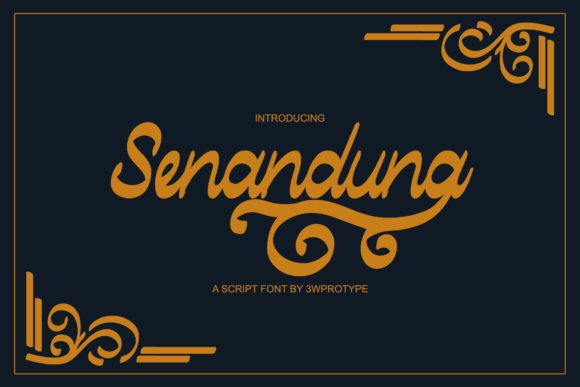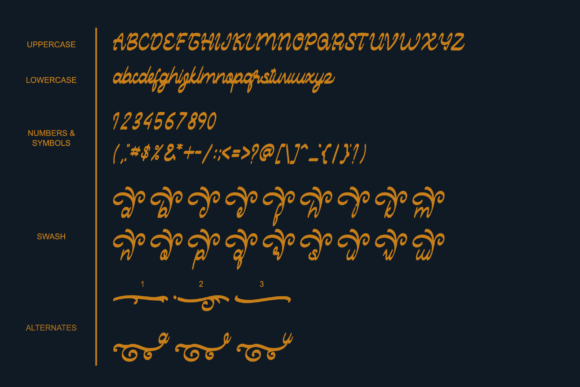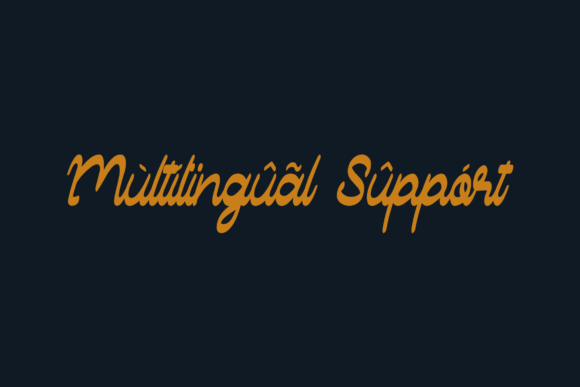
About Senandung Script Font
Senandung is a beautiful script font. The concise typeface is fun and casual, made with natural handwriting. This font is suitable for logos, shops, invitations, labels, magazines, books, greeting/wedding cards, packaging, fashion, make up, stationery, novels, labels, or anything else.